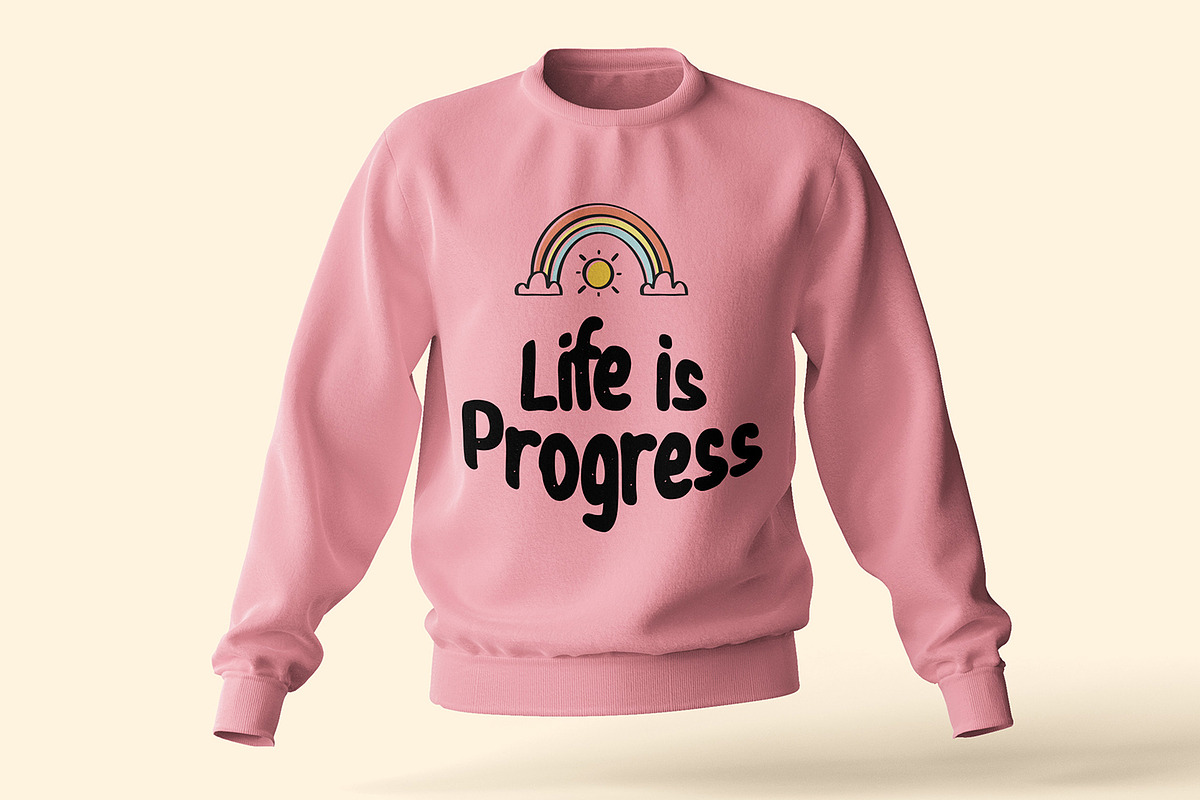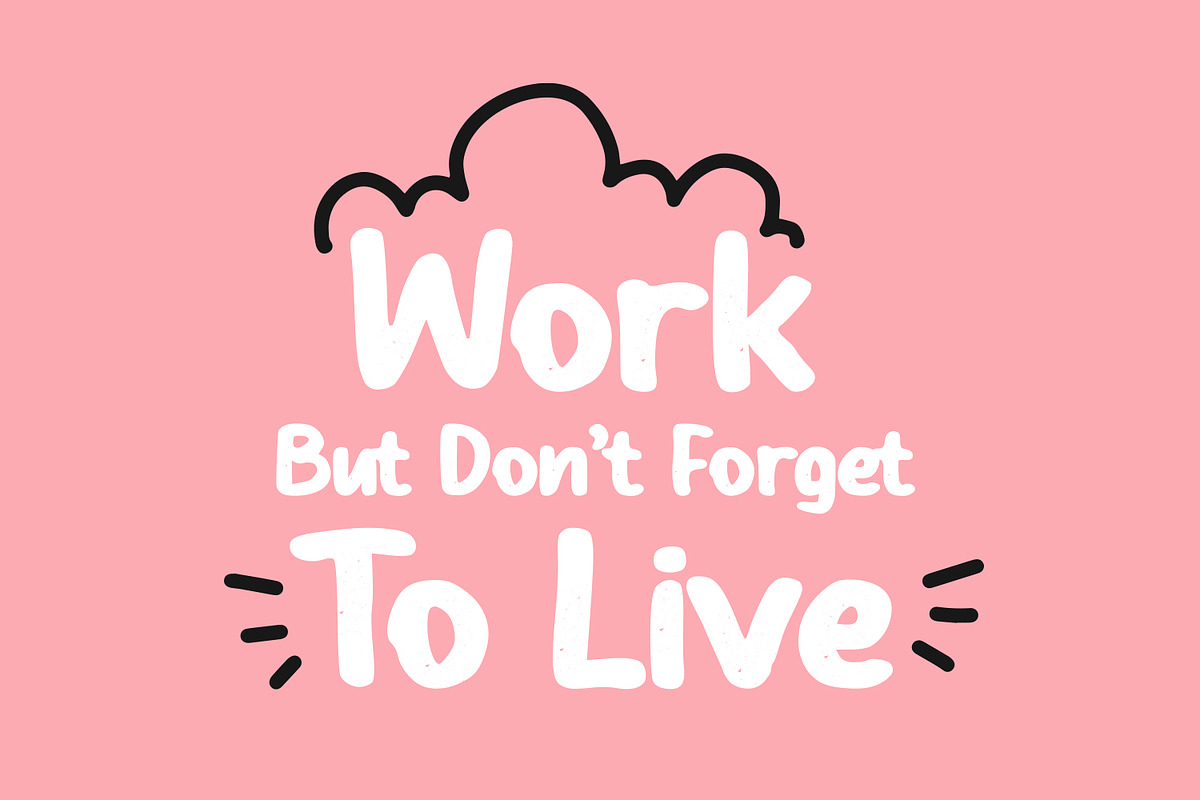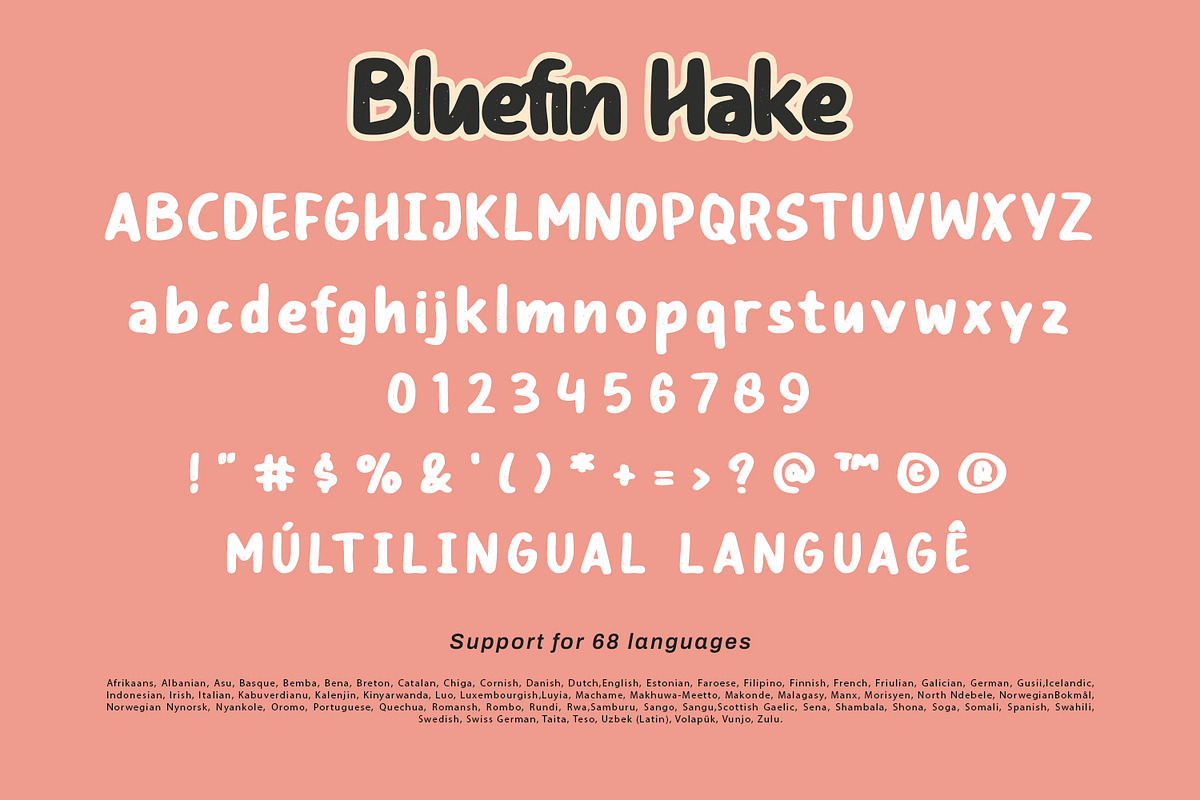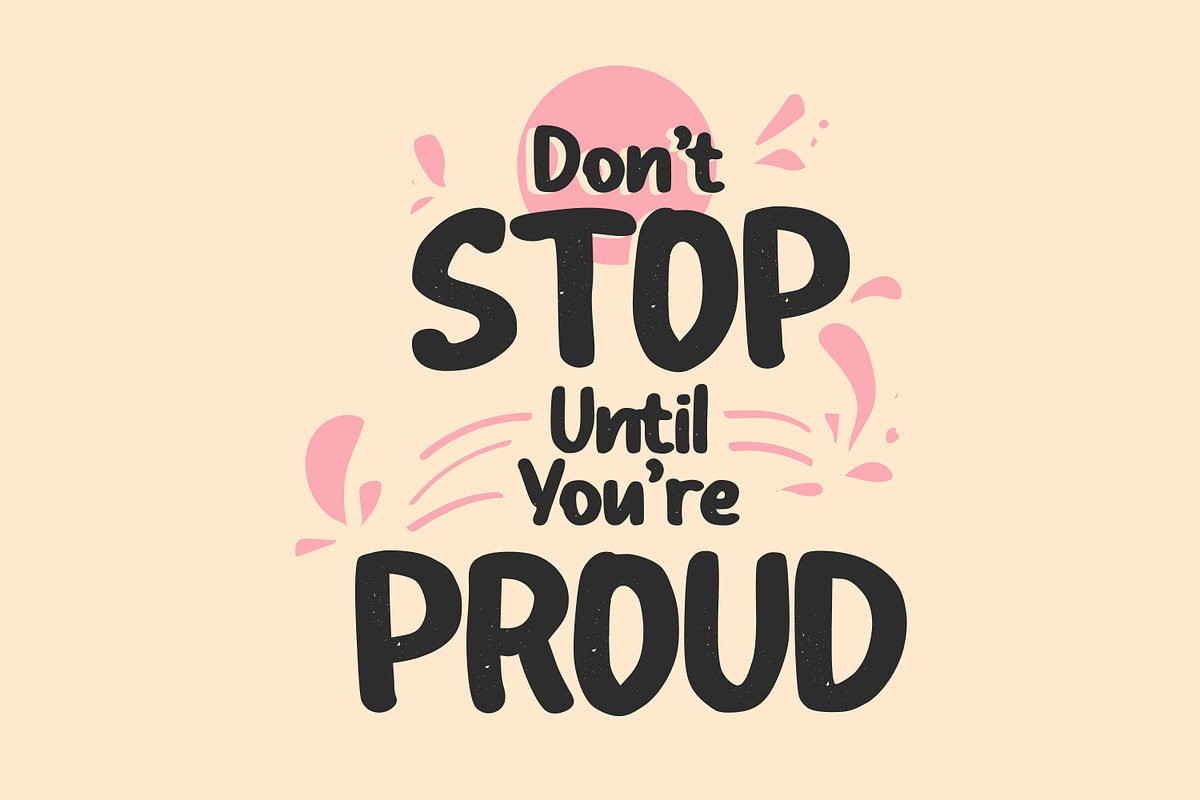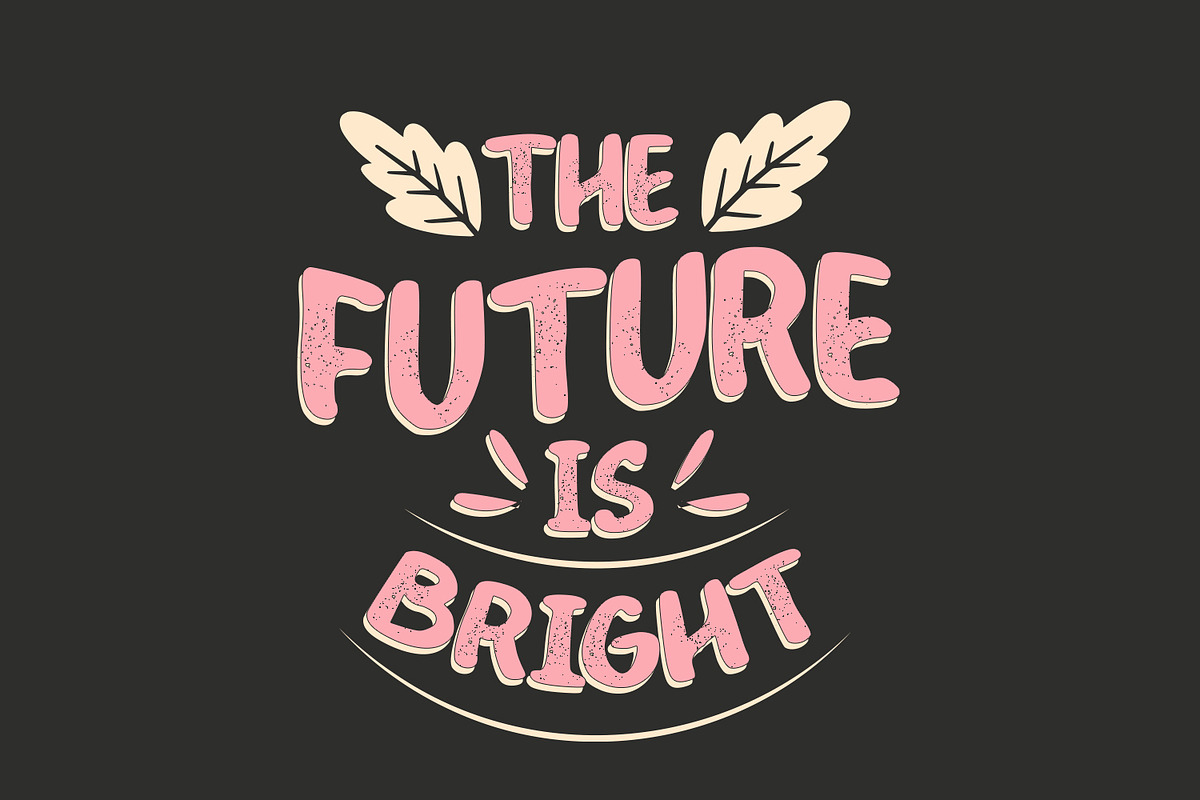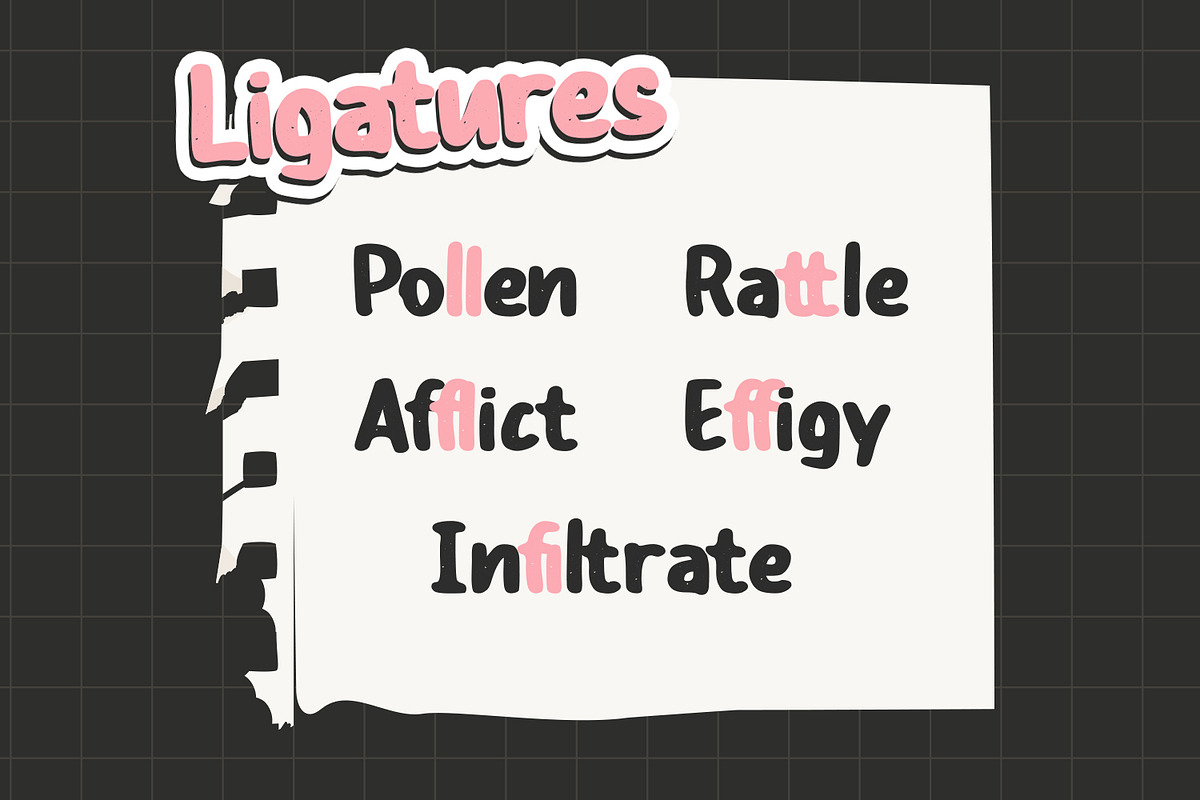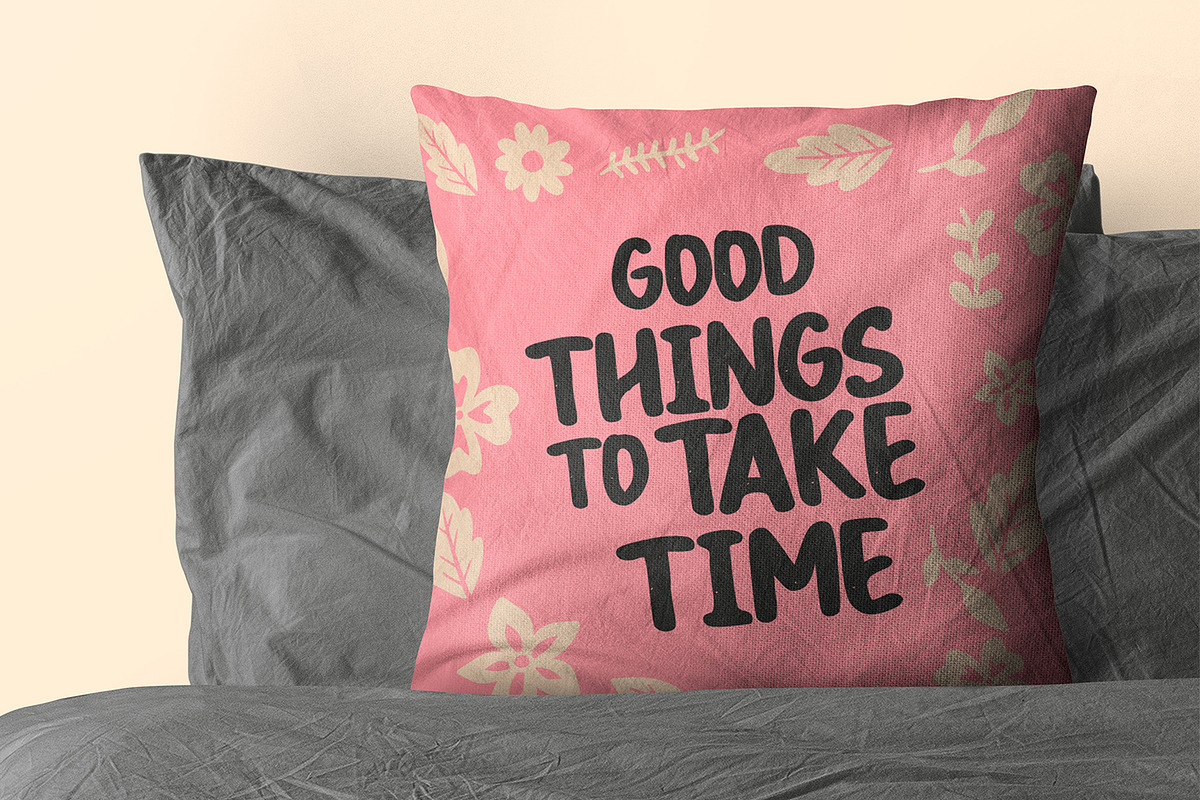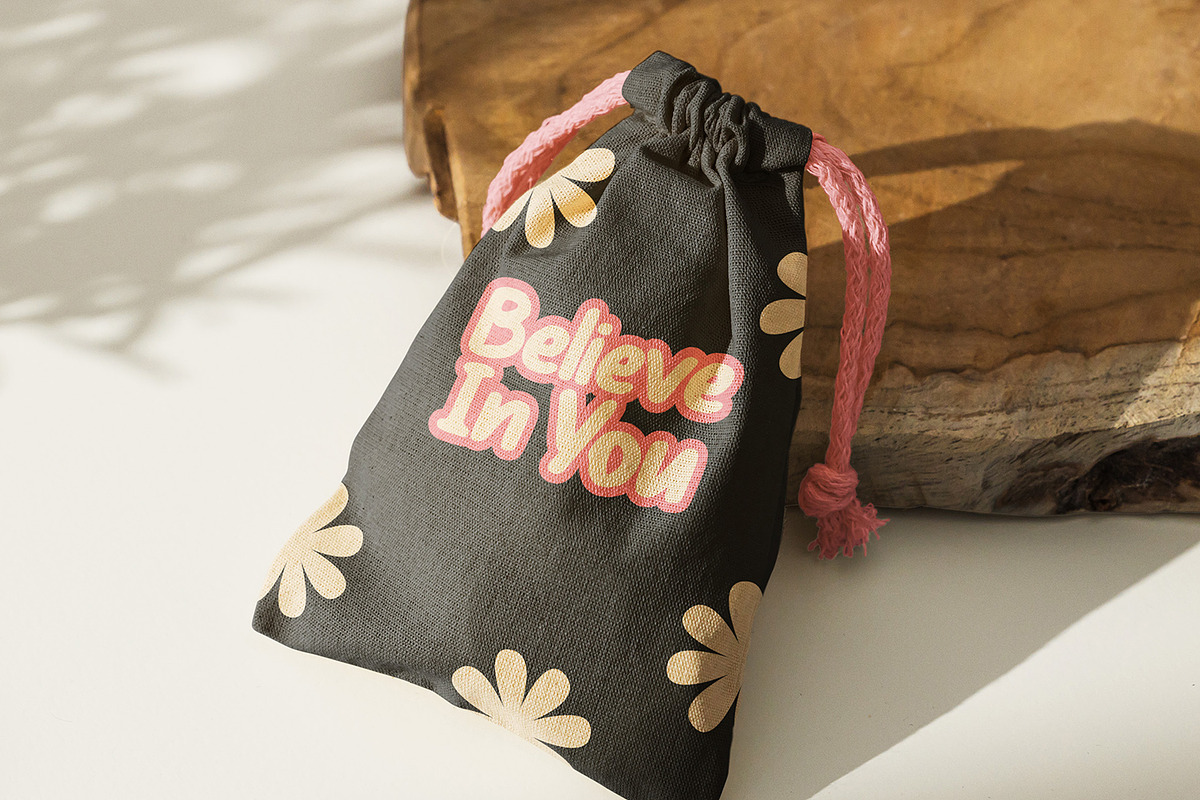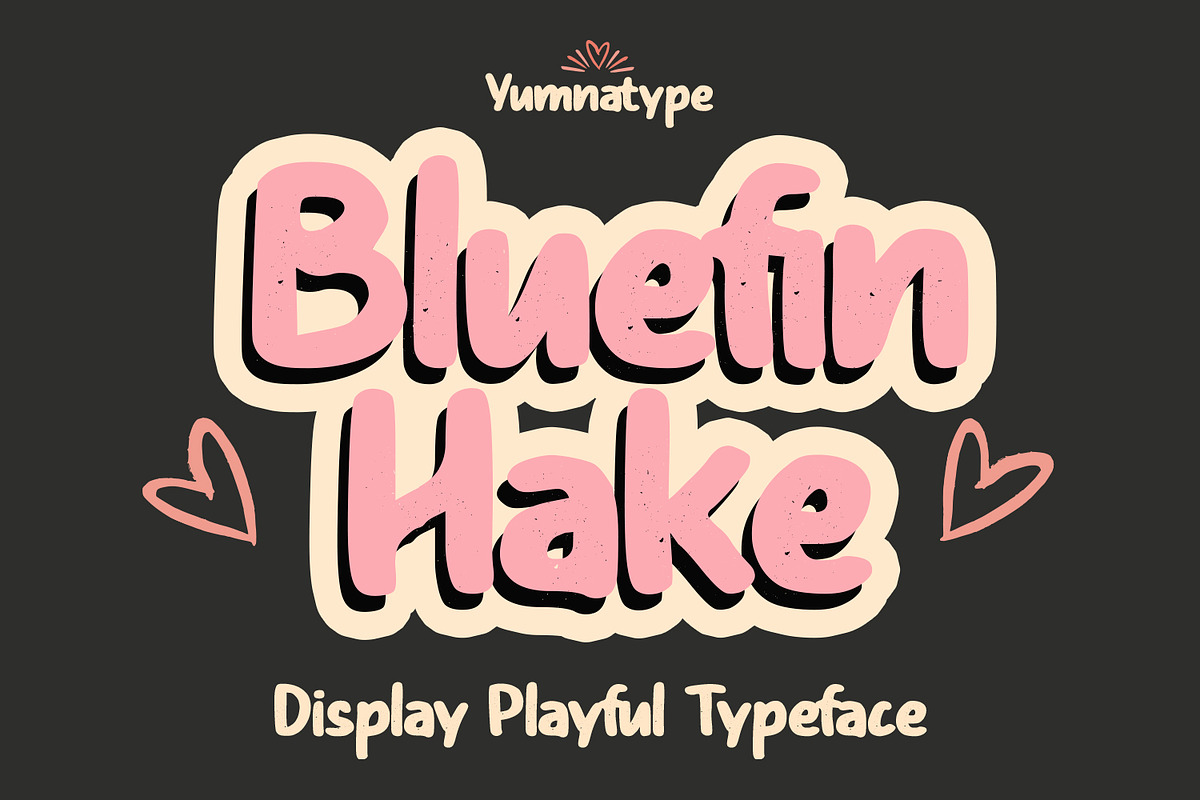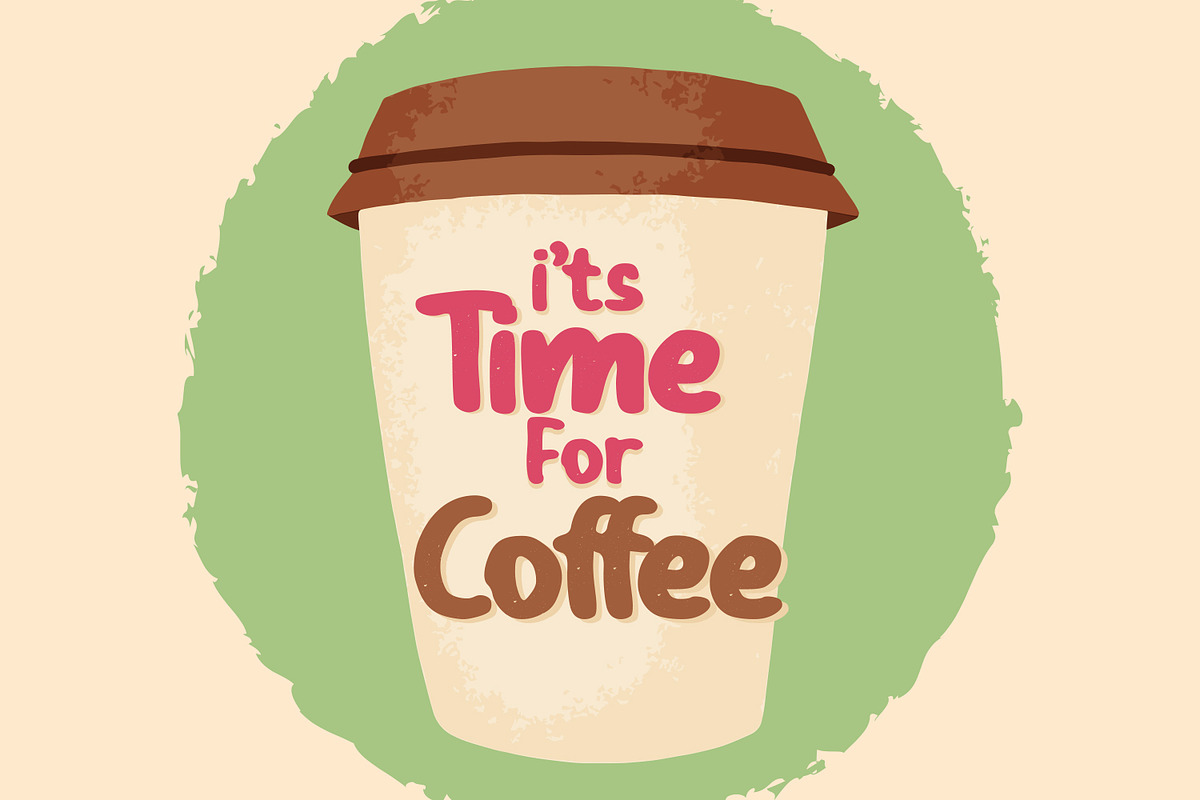
Bluefin Hake
Bluefin Hake is a captivating display font that brings a sense of playfulness and creativity to your designs. With its charming style and unique design, this font is perfect for projects that demand attention and personality. Each letter in Bluefin Hake is crafted with bold strokes and playful shapes, exuding a sense of energy and fun.
The bold weight of the font adds to its strong and confident presence, while the low contrast ensures clarity and legibility in any size. What sets Bluefin Hake apart is its subtle grunge details, which add a touch of texture and character to the font. In addition, enjoy the features here.
Bluefin Hake fits in headlines, logos, posters, flyers, branding materials, print media, editorial layouts, and many more designs. Find out more ways to use this font by taking a look at the font preview.